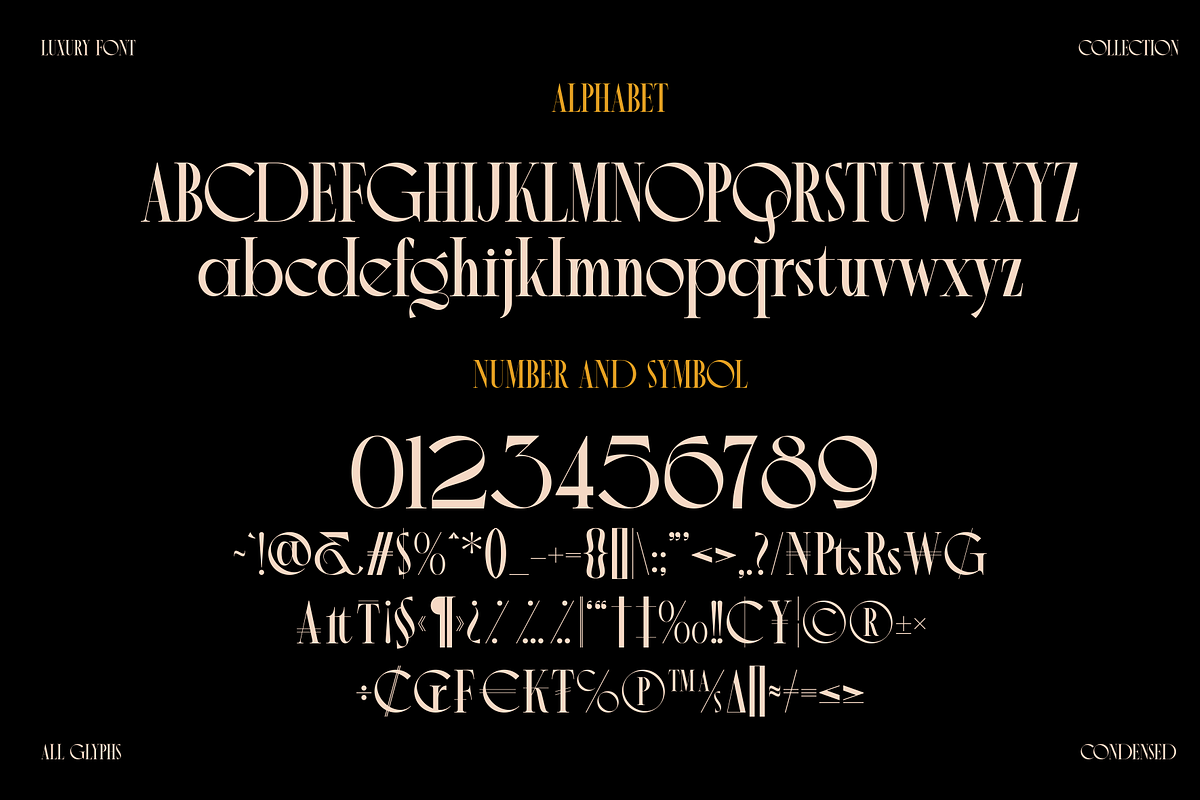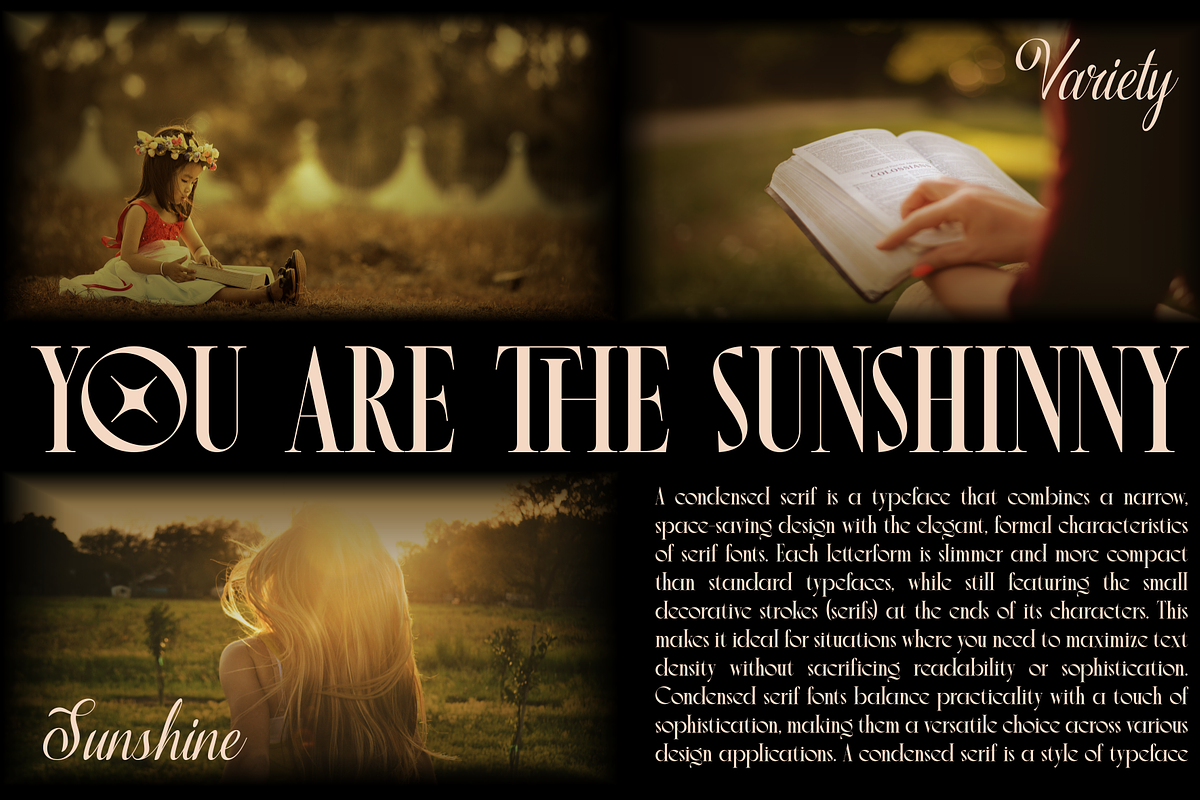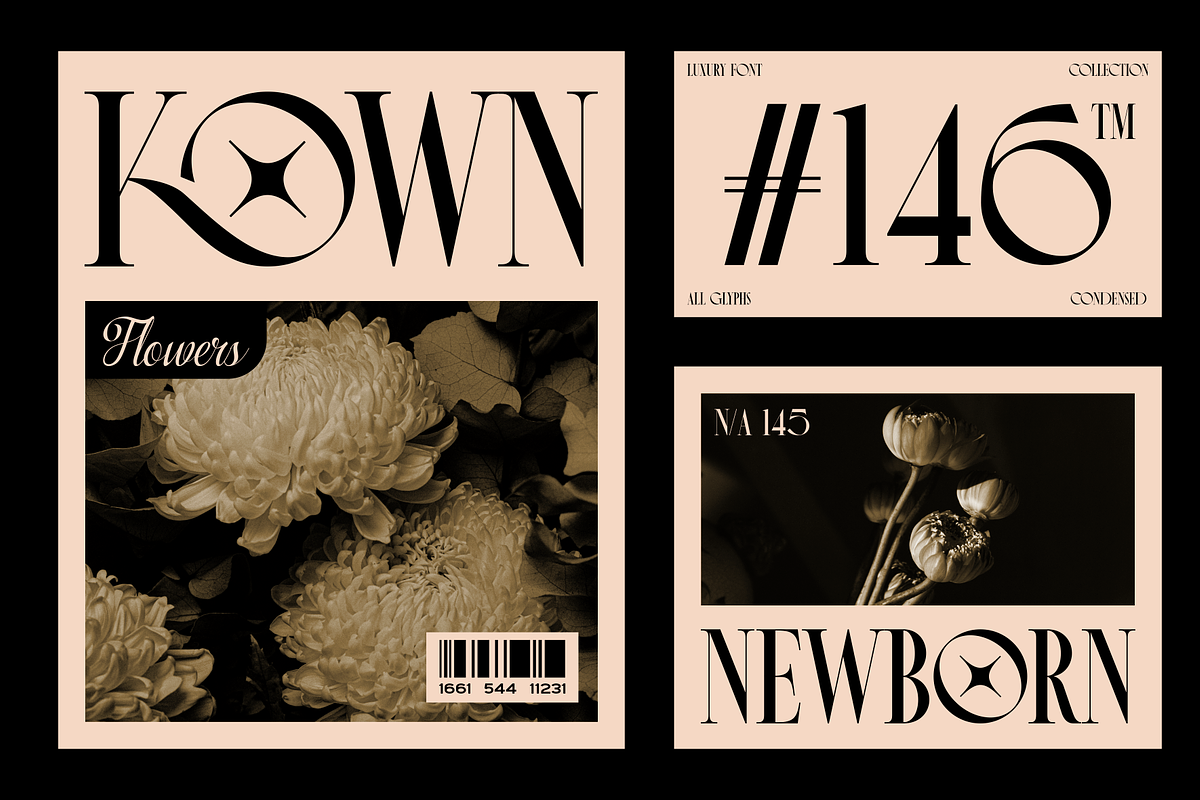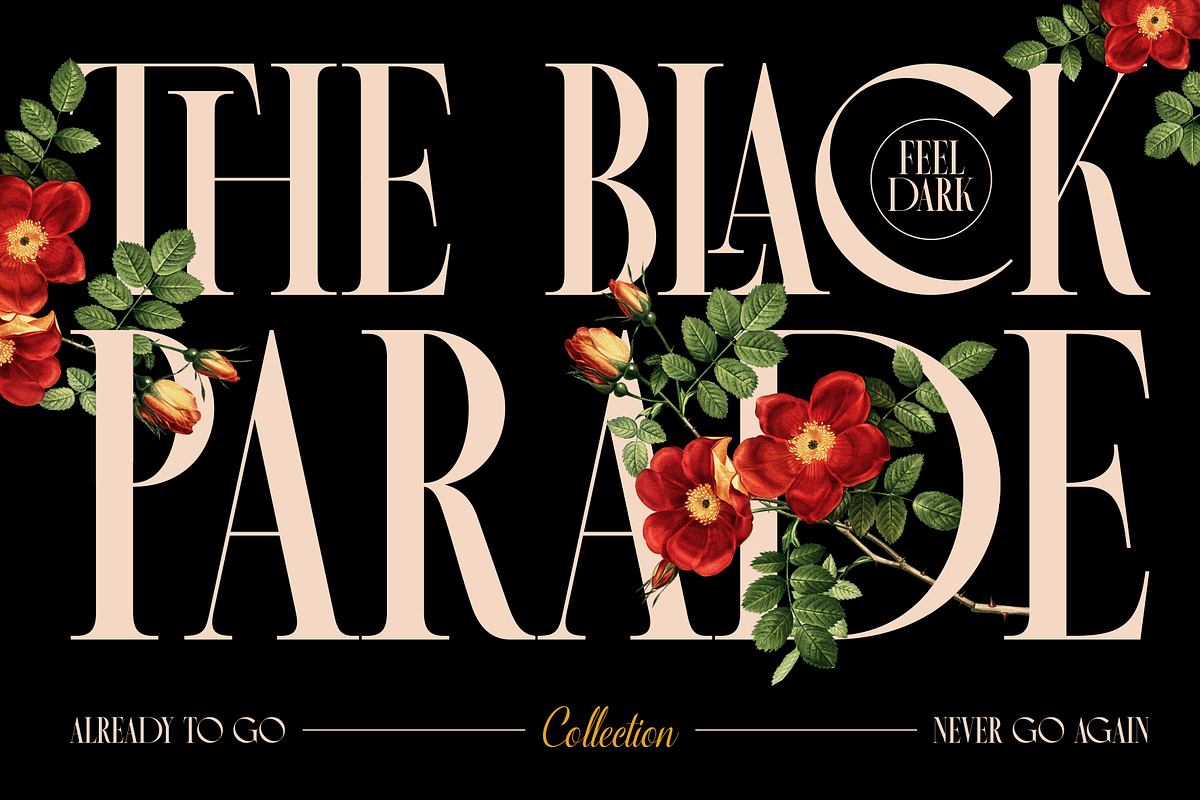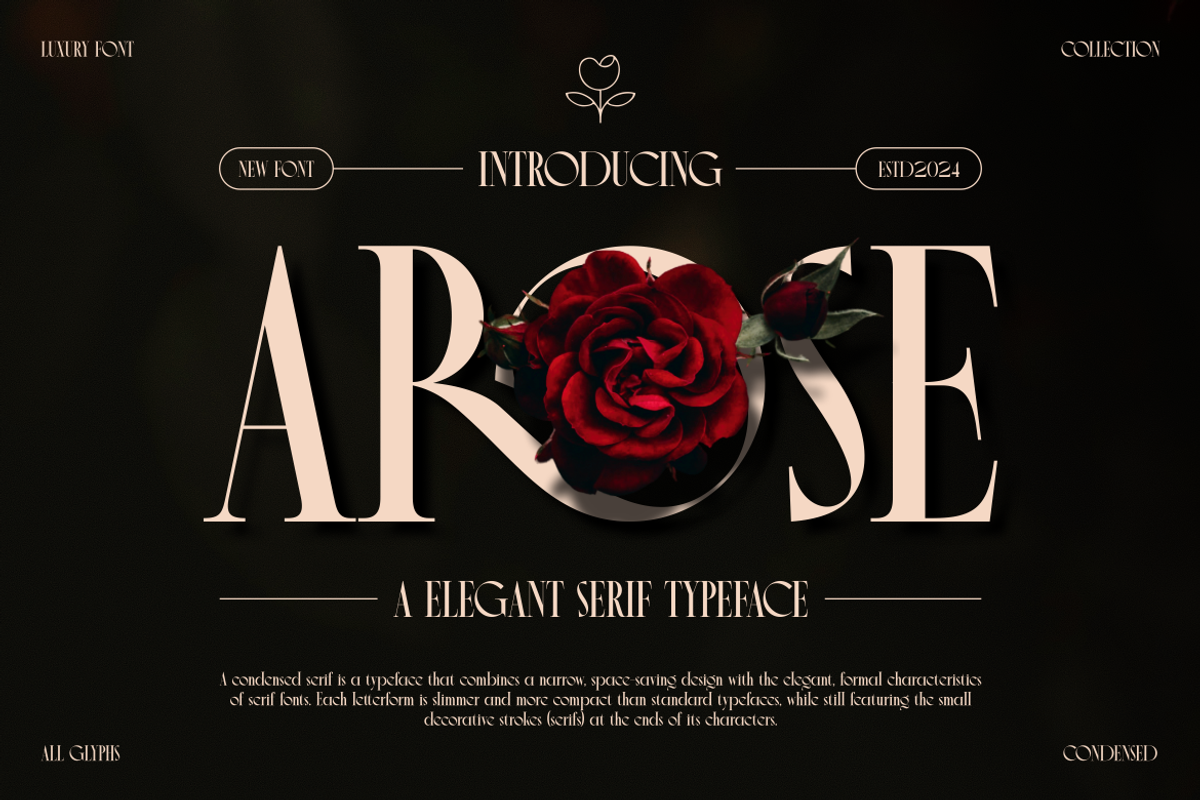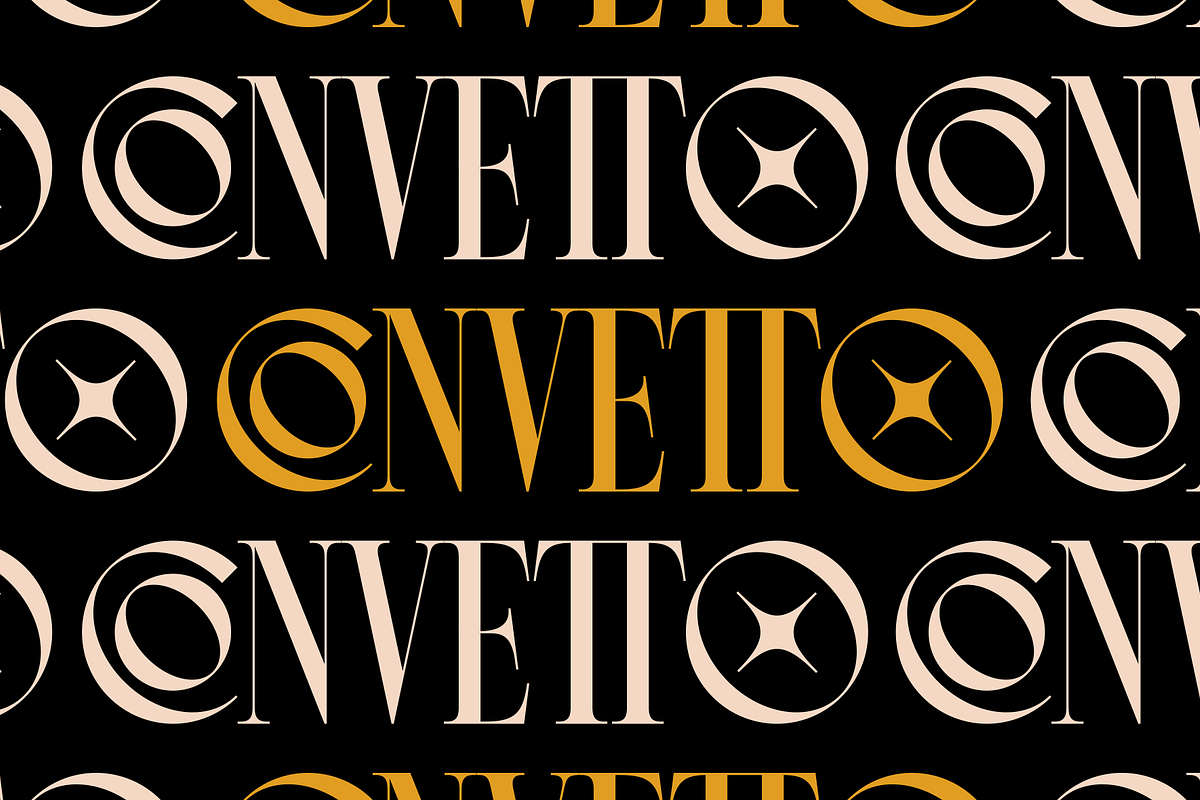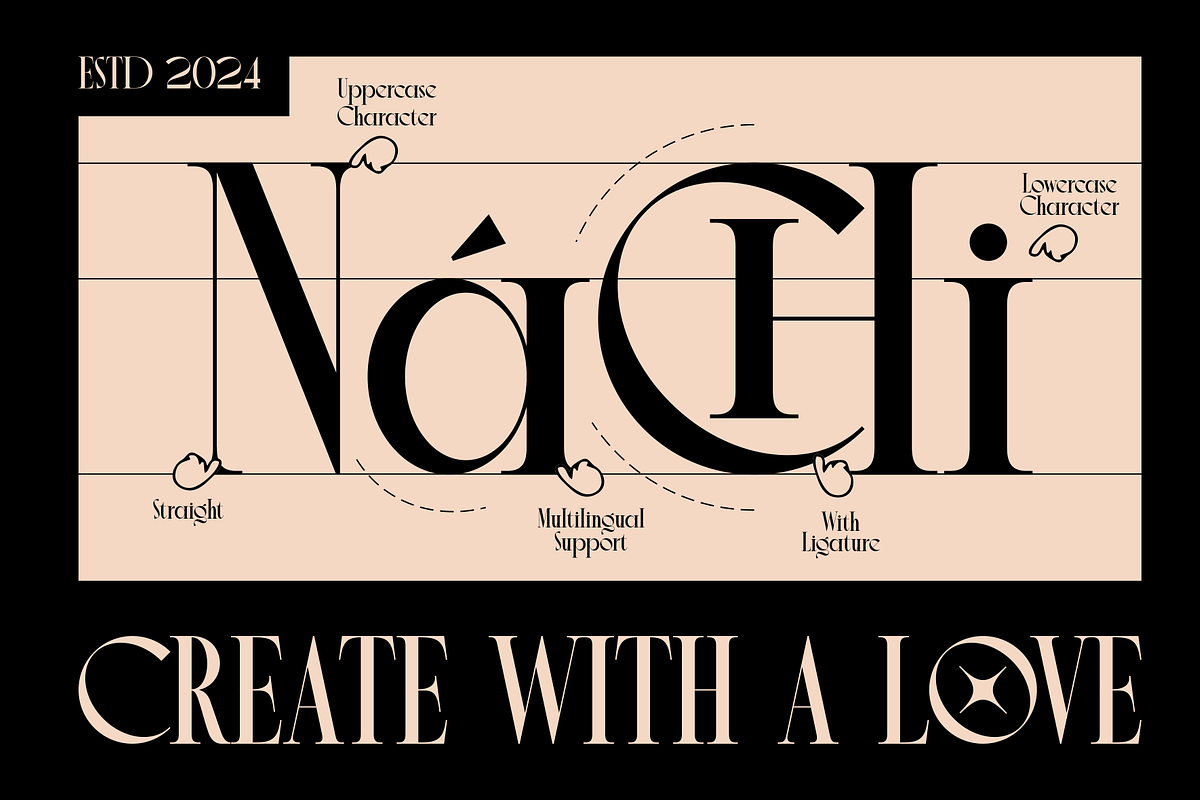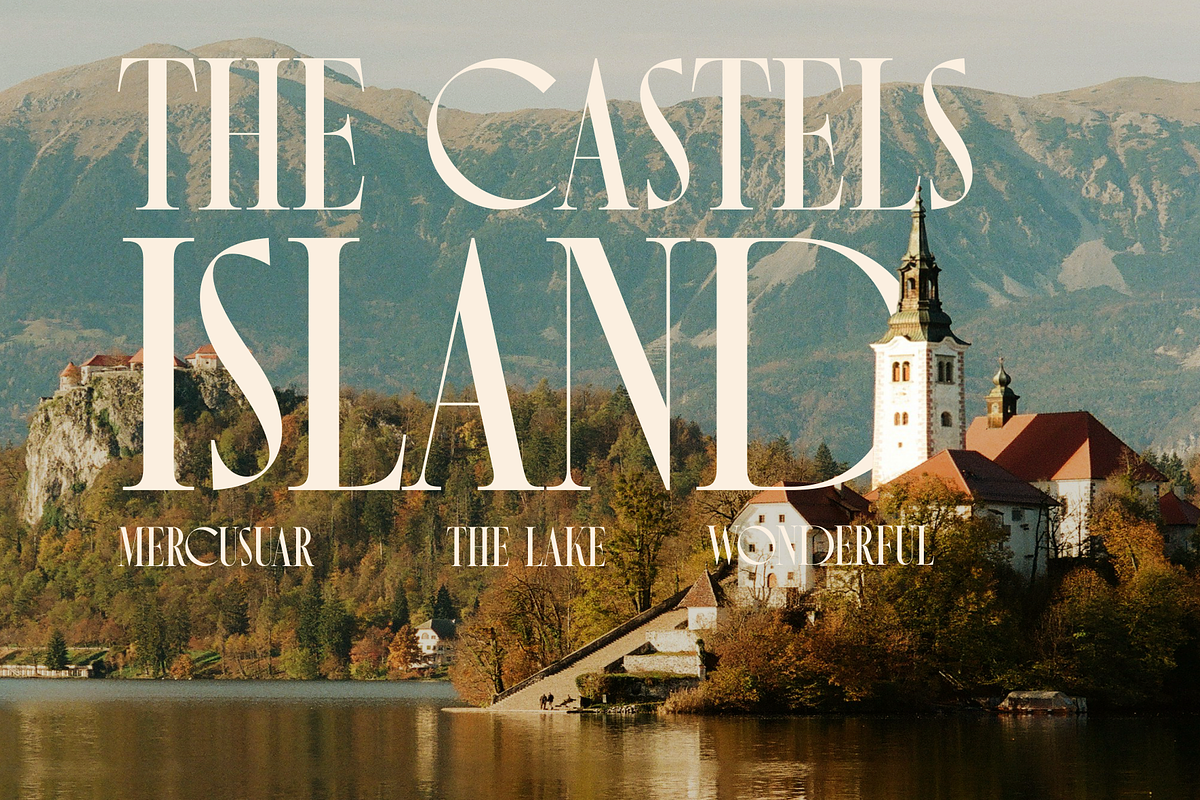
Arose - Elegant Serif Typeface
Introducing our new product Arose - Elegant Serif Typeface
This font is a type of letter that has special characteristics that create the impression of luxury, elegance and firmness. This font involves a series of design elements such as balanced thin and thick lines, gentle curves, and elegant and clean serifs. The sharp corners and fine details of each character create a highly aesthetic impression and exude an air of elegance.